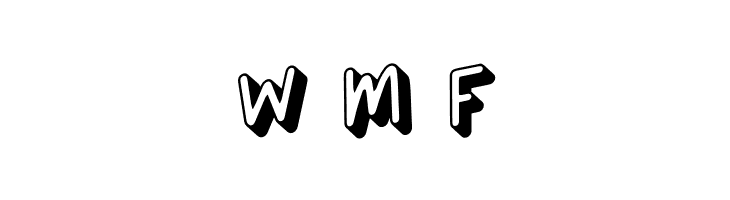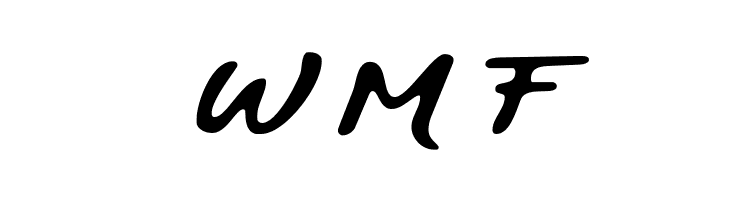
ZEMBOOD Font
Font by Shiro Ngampus
A bold, textured font with a distressed, vintage style.
SUSHI SHIRO Font
Font by The Docallisme
A bold, playful font with a 3D shadow effect and rounded, inflated characters.
Brooklyn Script Font
fluffyartstudio - indra gunawan - creativemarket.com/fluffyartstudio
A playful and elegant script font with fluid, interconnected letterforms.
shirota Font
A bold, playful font with rounded edges and a friendly appearance.
ZEMBOOD Vintage Font
Lettersiro - Shiro Ngampus - creativemarket.com/Lettersiro
A bold, textured vintage font with a distressed, rustic look.
Sweetland Font
Lettersiro Studio - Muhammad Sirojuddin - creativemarket.com/Lettersiro
A bold, cursive font with smooth, connected lines and a handwritten feel.